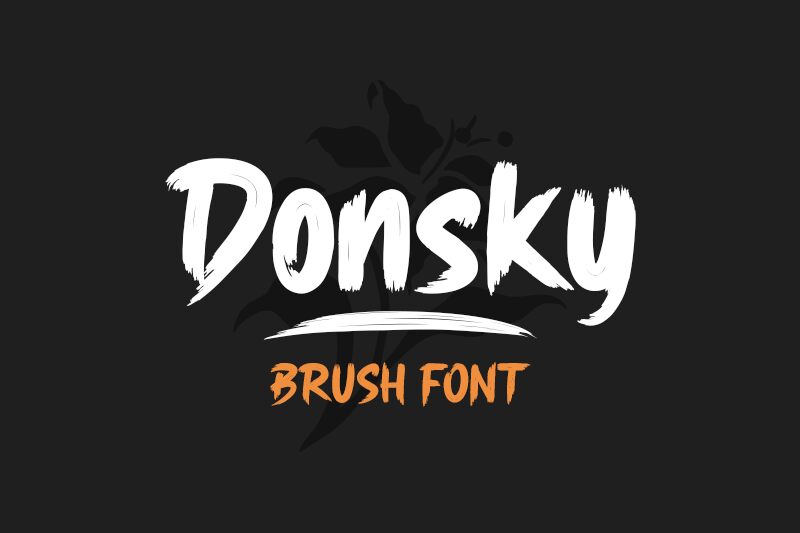
Donsky
Donsky, designed by Lemonthe, is a font that captures the raw energy of hand-painted signage with its bold brush strokes and spirited flair. This typeface boasts confident strokes and a dynamic rhythm that seems to dance across the page, infusing any text with an exuberant personality. Its robust form conveys strength and impact, making it a natural fit for projects that require a touch of drama and expressiveness.
Perfect for branding, eye-catching advertising, or evocative editorial work, Donsky’s assertive charm can elevate creative designs or make striking statements in artful compositions. With this font at their fingertips, designers can craft visuals that resonate with vivacity and vigor.